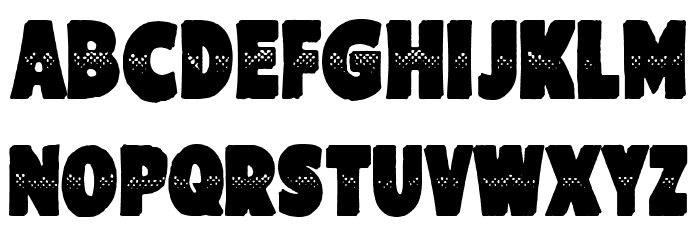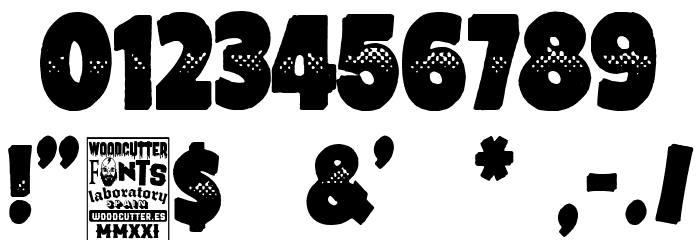
Violent Bunny Font
This font features a bold and playful design with a unique, textured appearance. Each character is filled with a pattern of small, irregular dots, giving it a dynamic and slightly chaotic look. The letters are thick and rounded, with a consistent weight throughout, making them highly legible despite the decorative elements. The font's style is reminiscent of a hand-drawn or crafted aesthetic, adding a whimsical and creative touch to any project. Its bold presence makes it suitable for eye-catching designs, while the playful texture adds character and depth.
A bold, playful font with a textured, dotted design and a hand-drawn aesthetic.
- Proposed Projects: Ideal for children's book covers, playful posters, creative branding, and eye-catching headlines.